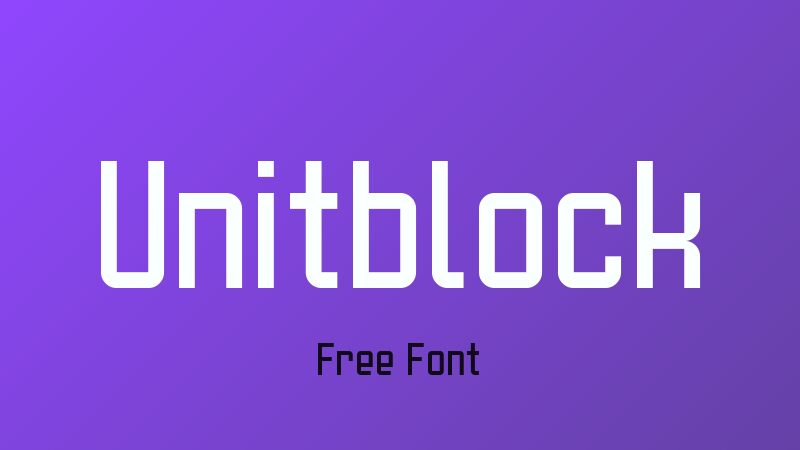
Unitblock, designed by GGBotNet, is a sleek and modern sans serif font with a techno-inspired aesthetic. Its semi-light weight and condensed width make it stand out from the crowd, offering a unique look that is perfect for a wide range of creative projects.
Whether used in branding, web design, or print materials, Unitblock's clean lines and futuristic vibe make it ideal for conveying a sense of innovation and cutting-edge style. With its versatility and striking appearance, this font is sure to elevate any design with its distinct personality and visual impact.
Unitblock